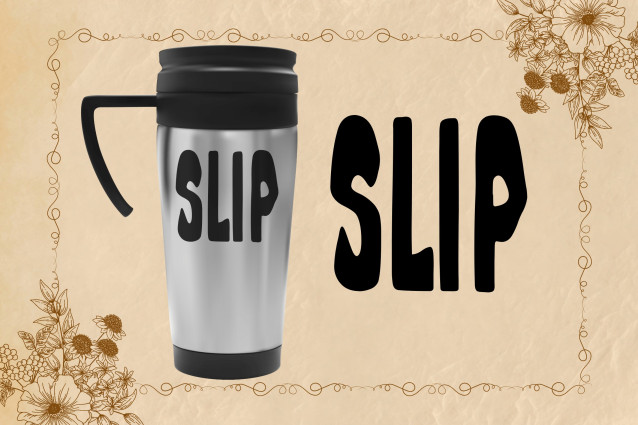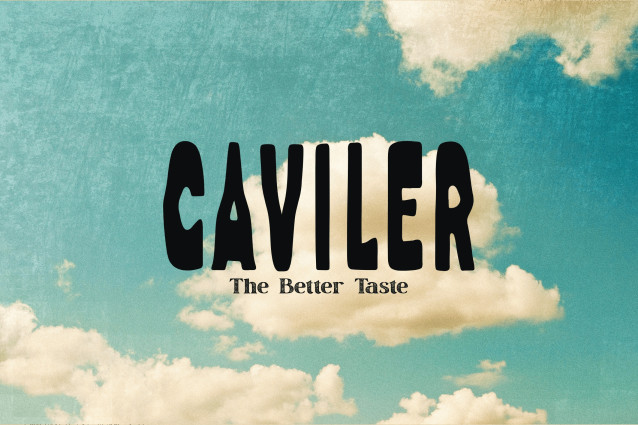
Quirky Condense Font
Quirky Condense Font is a charmingly playful condensed font that brings a fresh and lighthearted vibe to any project. With its tall, narrow letterforms and quirky styling, this font is ideal for designs that need both character and space efficiency. Whether you’re working on posters, branding, t-shirts, or quirky quote designs, Quirky Condense adds a cheerful, modern twist.